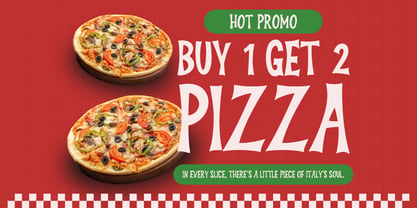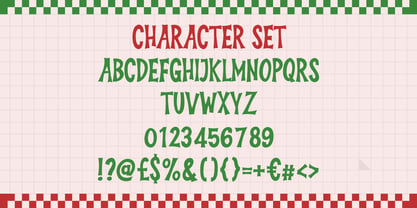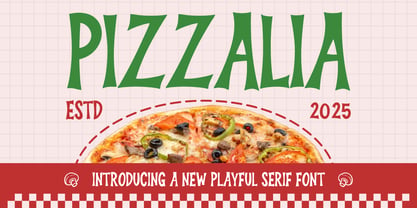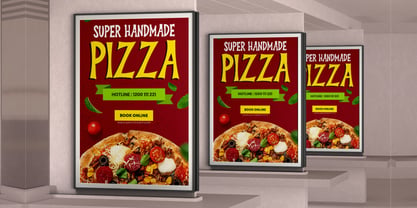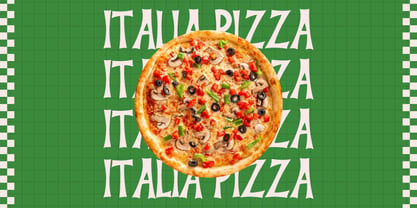
Pizzalia
by Shanaf
The Pizzalia Font Family was designed by Yesie Erma Yunita and published by Shanaf. Pizzalia contains 1 styles. More about this family
Pizzalia Playful Food Font brings a cheerful handmade feel that fits warm food branding and Italian-inspired visuals. Each letter uses tall and slightly uneven strokes that create a dynamic rhythm, giving the font a fun and organic personality. Its medium-thick structure offers clear readability, while the quirky curves and angled serifs add a friendly handcrafted charm. The shapes feel bold yet relaxed, giving designers a playful balance suited for restaurants, cafés, food promotions, or kid-friendly projects. With its energetic form, the font works especially well for upbeat logos, expressive packaging, inviting posters, and unique headlines that need extra flavor. Pizzalia Playful Food Font adds character to any layout without losing clarity. This font thrives in creative layouts that need warmth and atmosphere. The whimsical vertical forms create an authentic, slightly rustic mood that pairs beautifully with food themes, Italian aesthetics, and casual branding. Designers can use it for advertising, menu titles, stickers, book covers, greeting cards, and promotional materials. It supports expressive compositions thanks to its animated personality and strong visual presence. Pizzalia Playful Food Font keeps your design memorable and full of charm, giving every word a delicious handcrafted touch that feels lively, fun, and inviting.
Designers: Yesie Erma Yunita
Foundry: Shanaf
Shanaf Design is a foundry specializing in creating versatile and professional fonts. We focus on display fonts, designed to add strong and eye-catching character to various design needs.Our fonts are perfect for products, titles, crafting, and logos, ensuring each creation stands out with a unique identity. Based in Karanganyar, Central Java, Shanaf Design is committed to delivering innovative fonts that inspire designers worldwide.